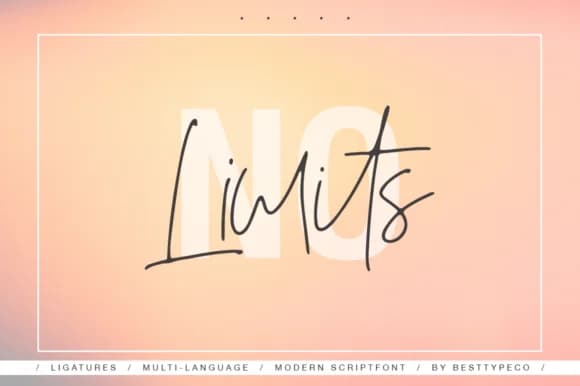
No Limits Font by BennyDesigns is a flowing handwritten script that brings warmth and personality to creative projects of all kinds. This versatile typeface excels in personal stationery design, where its graceful letterforms add genuine sophistication to wedding invitation suites and custom thank-you cards that recipients will treasure. The font's casual elegance works beautifully for small business branding, from hand-designed letterheads to premium packaging labels that make products stand out on shelves or online. Crafters and makers love using it for DIY craft signage, personalized gift tags, and scrapbooking layouts that capture authentic sentiment. Content creators incorporate it into social media graphics, digital invitations, and illustrated presentations where a human-drawn aesthetic enhances visual storytelling. The script's authentic handmade quality comes through in every character, making it an excellent choice for anyone seeking genuine warmth rather than cookie-cutter typeface solutions. Whether you're designing Etsy product labels for handmade goods, creating a signature style for a boutique skincare or specialty brand, or personalizing announcements and invitations for meaningful occasions, No Limits Font delivers consistent character and charm across projects. The font includes multiple language support, ensuring your creative work reaches diverse audiences worldwide. Discover how this distinctive script can transform your next design project, get No Limits Font on Creative Fabrica today.
- Elegant, Flowing, No Limits
No Limits Font is a script font that shines as a display or heading face. Pair it with a clean sans-serif or serif font for body text β the contrast creates a clear hierarchy while the two styles stay balanced and easy to read.
No Limits Font
by BennyDesigns